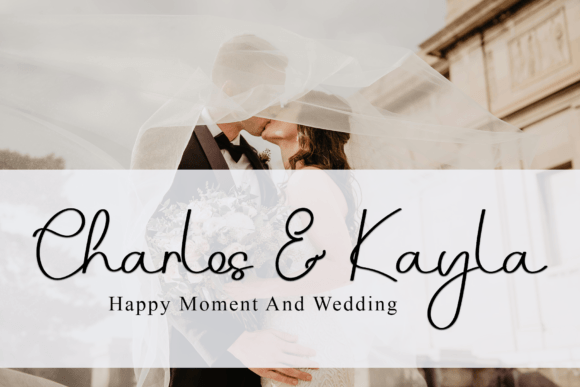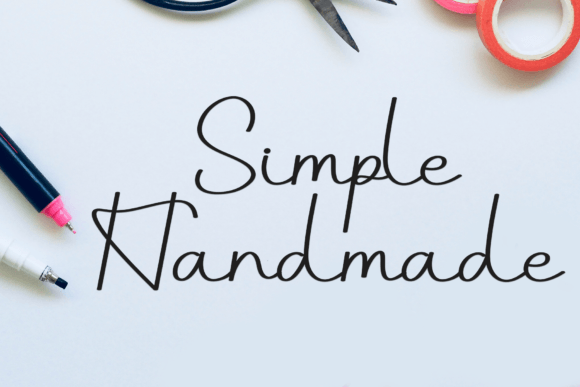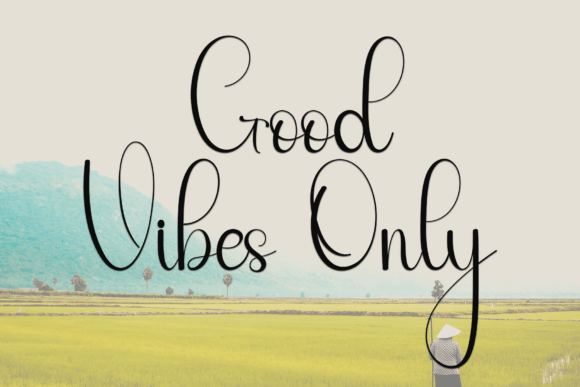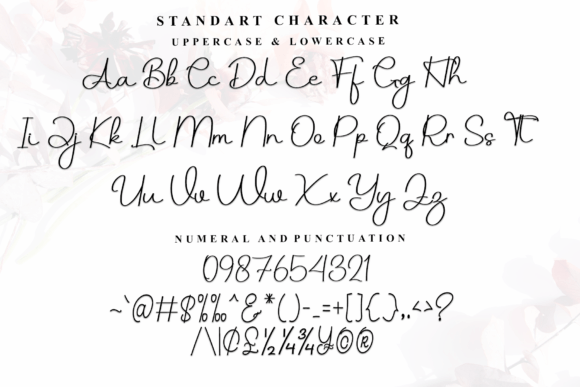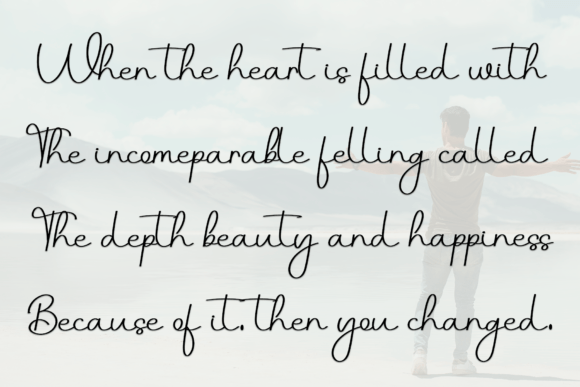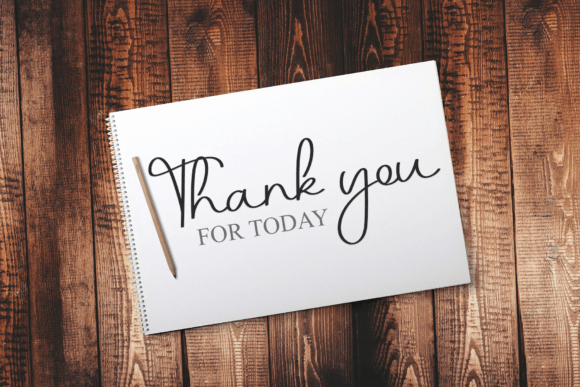
Queen Daddy Font – Free Download
Introduction to Queen Daddy Font
Queen Daddy is a festive and merry typeface that captures the spirit of the holiday season.
Key Features of Queen Daddy Font
Why Choose Queen Daddy Font?